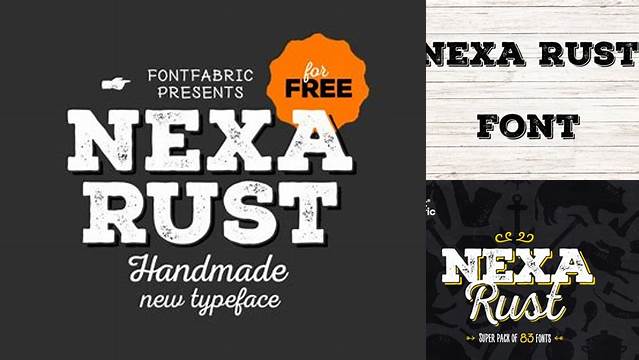
Hey guys, are you on the hunt for a killer font that's both versatile and visually stunning? Look no further because we're diving deep into the Nexa Rust Slab Font Family, and the best part? You can snag it with a free download! This article is your go-to guide, providing everything you need to know about this awesome font, from its design and features to how and where to download it legally. Let's get started!
Why Nexa Rust Slab is the Perfect Font for Your Projects
So, why is Nexa Rust Slab the font you need in your life? Well, it's a powerhouse of a font, offering incredible flexibility and a ton of style. This isn't just your average typeface; it's a whole font family. You get different weights, styles, and widths, giving you endless possibilities for your design projects. Think about it: You can use it for everything from a bold headline to the body text of your website. The Nexa Rust Slab family is designed to be eye-catching but still readable, making it perfect for grabbing attention without sacrificing clarity. This font family has a unique character, it's a slab serif font, which means it has those bold, blocky serifs that give it a strong and modern feel. But it's not just about the serifs, the whole design is clean, contemporary, and incredibly versatile. You can use it for branding, web design, print materials, and social media graphics. Plus, its numerous variations allow you to create a cohesive look across all of your design elements. This font can make your designs stand out from the crowd. The Nexa Rust Slab font is designed to handle a variety of design needs, including: making your content very visible, improving the presentation of your designs, ensuring that your message is well understood by audiences, and creating a professional visual identity for your projects. This is a font that will make your content unique and attractive.
Exploring the Features and Design of Nexa Rust Slab
Let's get into the nitty-gritty, shall we? What makes Nexa Rust Slab so special? Well, it's more than just a font; it's a complete design package. Created by the talented Fontfabric foundry, this font family boasts a wide range of styles. You get everything from regular to bold, thin to extra-black, and even condensed versions, which are perfect for fitting text into tight spaces. The design itself is a perfect blend of modern and friendly. It’s got that classic slab serif look, but with a contemporary twist. The letterforms are clean and well-defined, making them easy to read at any size. This is important whether you're designing for print or the web. The font family also includes a great set of glyphs, which are those extra characters and symbols that can really add flair to your designs. You'll find everything from currency symbols to arrows and other graphic elements. These glyphs are super useful for creating custom designs and adding a unique touch. Plus, the font supports a wide range of languages, so you can use it for projects worldwide. The Nexa Rust Slab font family is designed to offer the most flexibility. You get different weights, styles, and widths, giving you endless possibilities for your design projects. Whether you are designing a website, a printed document, a logo, or anything else, the Nexa Rust Slab font family will be an excellent choice. It's a complete design package that offers a wide range of styles and glyphs. The font supports a wide range of languages, so you can use it for projects worldwide. This is a great font.
One of the standout features is its versatility. You can use Nexa Rust Slab for a huge variety of projects. Want to create a stylish logo? No problem. Need a modern website header? Easy. How about some eye-catching social media graphics? Absolutely! The different weights and styles allow you to create a cohesive and consistent look across all of your designs. This is super important for branding. Another awesome thing is the readability. Even the boldest weights are easy to read, which is crucial for headings and titles. The thinner weights are elegant and work well for body text, and the condensed versions are great for saving space without sacrificing clarity. Its design is a perfect blend of modern and friendly. Its letterforms are clean and well-defined, making them easy to read at any size. This is important whether you're designing for print or the web. Whether you're designing a website, a printed document, a logo, or anything else, the Nexa Rust Slab font family will be an excellent choice. It's a complete design package that offers a wide range of styles and glyphs. This is a great font.